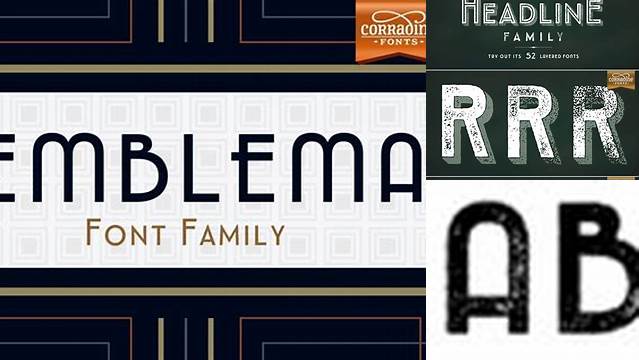
Emblema Headline Deco Font: Free Download Guide
Hey guys! Ever stumbled upon a font that just clicks? That's how I felt when I first saw the Emblema Headline Deco Font. It’s got this amazing retro yet modern vibe, perfect for adding a touch of class to any design project. Whether you're working on a killer poster, a sleek website header, or even some eye-catching social media graphics, this font can really elevate your work. In this guide, we're diving deep into everything Emblema, from its unique characteristics to where you can snag it for free. So, buckle up and let's get font-tastic!
1. What is Emblema Headline Deco Font?
So, what exactly is the Emblema Headline Deco Font, and why is it so special? Well, imagine a font that effortlessly blends the elegance of Art Deco with a contemporary edge. That’s Emblema in a nutshell! It's a typeface that screams sophistication, making it ideal for projects where you want to convey a sense of timeless style and luxury. Think vintage movie posters, high-end branding, and editorial designs that demand attention. The font's distinctive letterforms feature strong geometric shapes and smooth curves, creating a visually striking and memorable impression. If you're looking to add a touch of glamour to your designs, Emblema is definitely a font worth considering. But, hey, before you jump in, let’s talk about its specific features and use cases to make sure it’s the perfect fit for your next project!
2. Unique Characteristics of Emblema Font
The Emblema Headline Deco Font boasts several unique characteristics that set it apart from other typefaces in its category. First off, its letterforms are a beautiful blend of sharp angles and flowing curves, giving it a dynamic and eye-catching appearance. The geometric shapes, a hallmark of the Art Deco style, are prominent throughout the font, adding a sense of structure and sophistication. But it's not all about rigid lines; the curves soften the overall look, making it feel elegant and approachable. Another key feature is its strong visual presence. Emblema is designed to command attention, making it an excellent choice for headlines and titles. It’s also surprisingly versatile, working well in both large and small sizes, though it truly shines when used for display purposes. The font also offers a good range of weights and styles, allowing you to create visual hierarchy and add depth to your designs. Overall, Emblema's unique blend of geometry, curves, and strong presence makes it a standout choice for any project that needs a touch of retro glamour.
3. Best Uses for Emblema Headline Deco Font
Okay, so you know what the Emblema Headline Deco Font is, but where does it really shine? Well, this font is a true star when it comes to headlines and titles. Its bold and distinctive letterforms instantly grab attention, making it perfect for posters, website headers, and magazine covers. Imagine a sleek movie poster with the title emblazoned in Emblema – instant classic! But it’s not just for big, bold statements. Emblema also works beautifully in branding and logo design. Its sophisticated aesthetic can elevate a brand's image, conveying a sense of luxury and style. Think high-end fashion brands or boutique hotels. Social media graphics are another area where Emblema can make a big impact. Its eye-catching design ensures your posts stand out in a crowded feed. And let’s not forget editorial design! Emblema can add a touch of elegance to magazine layouts, book covers, and other print materials. Basically, if you need a font that exudes style and sophistication, Emblema is your go-to choice. But, hey, let’s dig a bit deeper into specific examples, shall we?
4. Emblema Font in Branding Projects
When it comes to branding projects, the Emblema Headline Deco Font can be a game-changer. Its elegant and sophisticated style makes it an excellent choice for brands that want to project a sense of luxury and timelessness. Imagine a high-end fashion brand using Emblema for its logo and marketing materials. The font’s distinctive letterforms would instantly convey a sense of exclusivity and style. Or consider a boutique hotel using Emblema for its signage and website. The font’s Art Deco influence would evoke a feeling of vintage glamour, attracting guests who appreciate classic elegance. But it's not just about luxury brands. Emblema can also work well for businesses that want to project a sense of creativity and sophistication. Think design agencies, art galleries, or even upscale restaurants. The key is to use Emblema strategically, pairing it with complementary fonts and design elements that enhance its overall impact. When used effectively, Emblema can help a brand stand out from the crowd and create a lasting impression on its target audience. So, if you're looking to elevate your brand's image, Emblema might just be the perfect font for the job. Let’s dive into some practical tips on how to use it effectively, shall we?
5. Using Emblema for Website Headers
Using the Emblema Headline Deco Font for website headers can instantly elevate the visual appeal of your site. Imagine your website's title or key headings displayed in this elegant typeface – it’s sure to make a strong first impression! Emblema's bold and distinctive letterforms grab attention, ensuring that your message is seen and remembered. It’s particularly effective for websites that want to convey a sense of sophistication and style. Think websites for fashion brands, design agencies, or luxury hotels. But it’s not just about aesthetics. Emblema can also improve the overall user experience of your website. By using it strategically for headers, you can create a clear visual hierarchy, making it easier for visitors to navigate your site. When using Emblema for website headers, it’s important to consider factors like font size, color, and spacing. You want to ensure that the text is legible and visually appealing, without overwhelming the rest of the page. Pairing Emblema with a simpler body font can create a balanced and harmonious design. Overall, Emblema is a fantastic choice for website headers, adding a touch of class and sophistication to your online presence. So, let’s explore some specific examples of how it can be used in different website designs!
6. Emblema Font in Poster Design
When it comes to poster design, the Emblema Headline Deco Font is a true powerhouse. Its bold and distinctive letterforms make it an ideal choice for grabbing attention and conveying a sense of style. Imagine a vintage movie poster with the title emblazoned in Emblema – it instantly evokes a feeling of classic Hollywood glamour! But it’s not just for retro designs. Emblema can also work beautifully in modern posters, adding a touch of sophistication and elegance. Think posters for art exhibitions, music events, or theatrical performances. The key to using Emblema effectively in poster design is to let it shine. Don't overcrowd the design with too many other elements. Keep the layout clean and simple, allowing the font to take center stage. Consider using Emblema for the main title or headline, pairing it with a simpler font for the body text. This creates a clear visual hierarchy and ensures that the message is easily readable. Color is another important factor. Emblema looks stunning in metallic shades like gold or silver, but it also works well in bold, contrasting colors. Overall, Emblema is a fantastic font for poster design, adding a touch of timeless elegance to any visual communication. Now, let’s delve into some creative techniques for making your posters truly stand out!
30. Future Trends in Decorative Fonts like Emblema
Looking ahead, the world of decorative fonts like the Emblema Headline Deco Font is set to continue evolving in exciting ways! As designers seek to create unique and memorable visual experiences, decorative fonts are playing an increasingly important role. One trend we're seeing is a resurgence of vintage-inspired fonts, like Emblema, that evoke a sense of nostalgia and timeless elegance. Art Deco, in particular, is having a major moment, with designers incorporating geometric shapes, bold lines, and luxurious details into their typography. We're also seeing a growing interest in handcrafted and hand-drawn fonts. These fonts have a more organic and personal feel, which can add a touch of warmth and authenticity to designs. Variable fonts are another exciting development in the font world. Variable fonts allow designers to adjust various aspects of a font, such as weight, width, and slant, offering unprecedented flexibility and control. This technology is likely to have a significant impact on the future of decorative fonts, allowing designers to create truly custom and unique typefaces. Finally, the rise of digital platforms and social media is influencing font trends. Fonts that are legible and impactful on screens are becoming increasingly important, leading to a focus on clarity and visual hierarchy. In the future, we can expect to see decorative fonts that are both visually stunning and optimized for digital use. So, keep your eyes peeled for these exciting trends in decorative fonts!